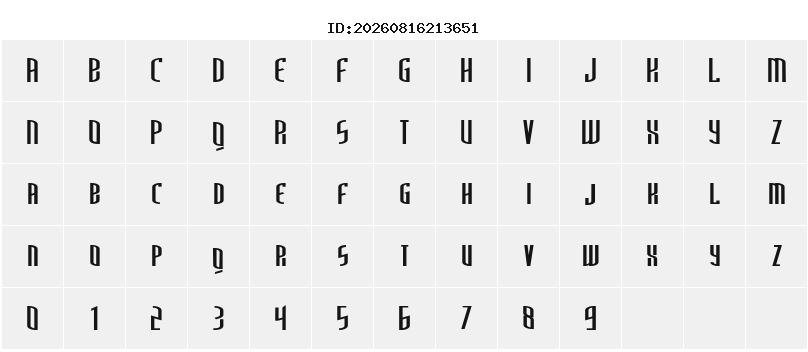
Space Preview
• Font Name: Space
• Font Style: Cowboy
• Font ID: Macromedia Fontographer 4.1 Space Cowboy
• Full Font Name: Space Cowboy
• Version: Macromedia Fontographer 4.1 10/2/97
• PostScript Name: SpaceCowboy
About Space.ttf
Space.ttf is a modern, elegant sans-serif font designed for ultimate readability and visual harmony. Perfect for branding, headlines, web design, and print materials.